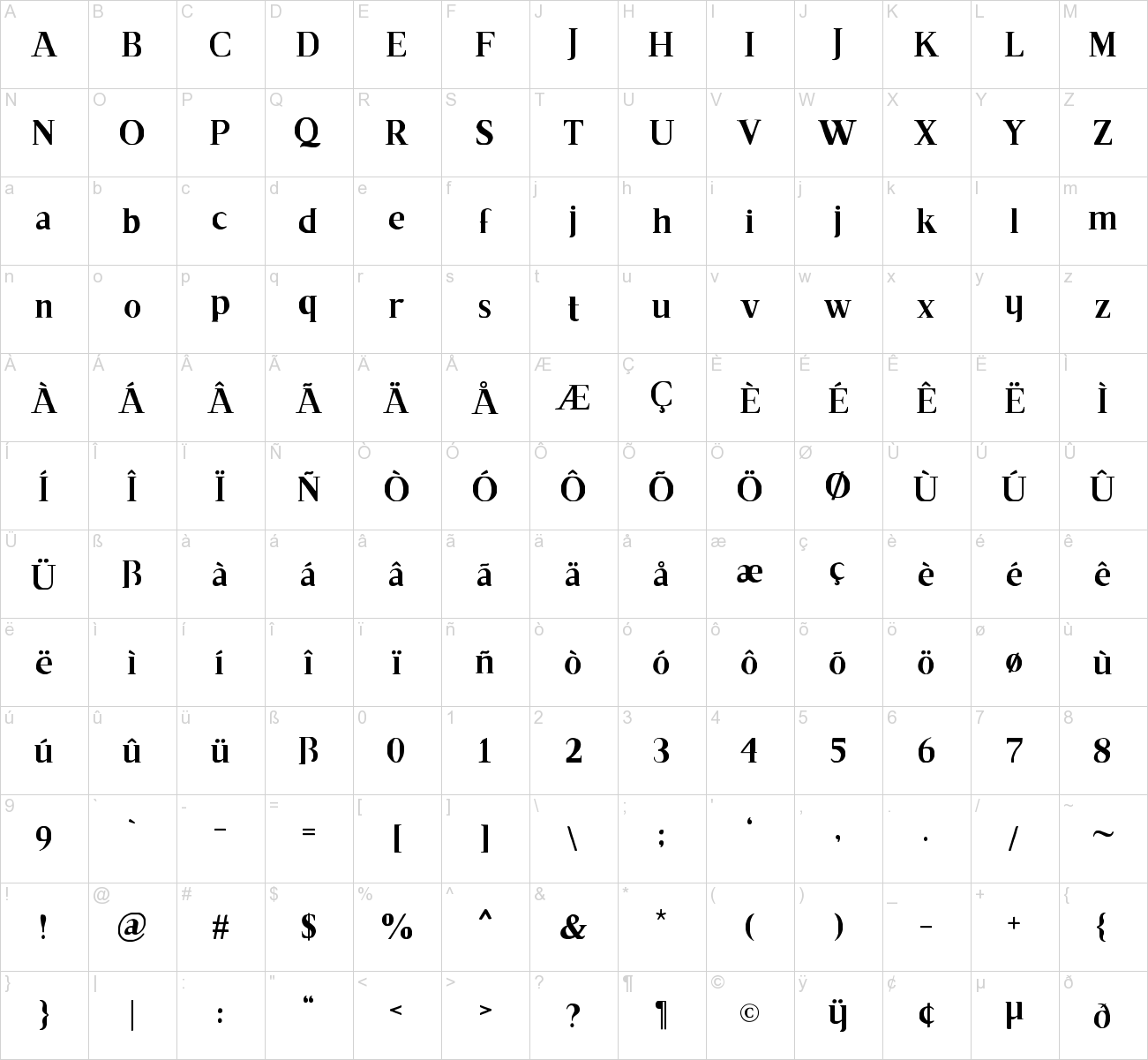
Brixton Font
Introducing the whole Brixton Collection – A System of 16 Lovingly Handcrafted Fonts
This stunning collection of fonts has been something that I have been tinkering with since I started font design. The original Brixton font was one of my first ever designs and since its launch, I have added and edited the family to what it is here before you. I still don’t think I am entirely done, I still want to add more! (and if I do, your purchase will give you free access to the updates)